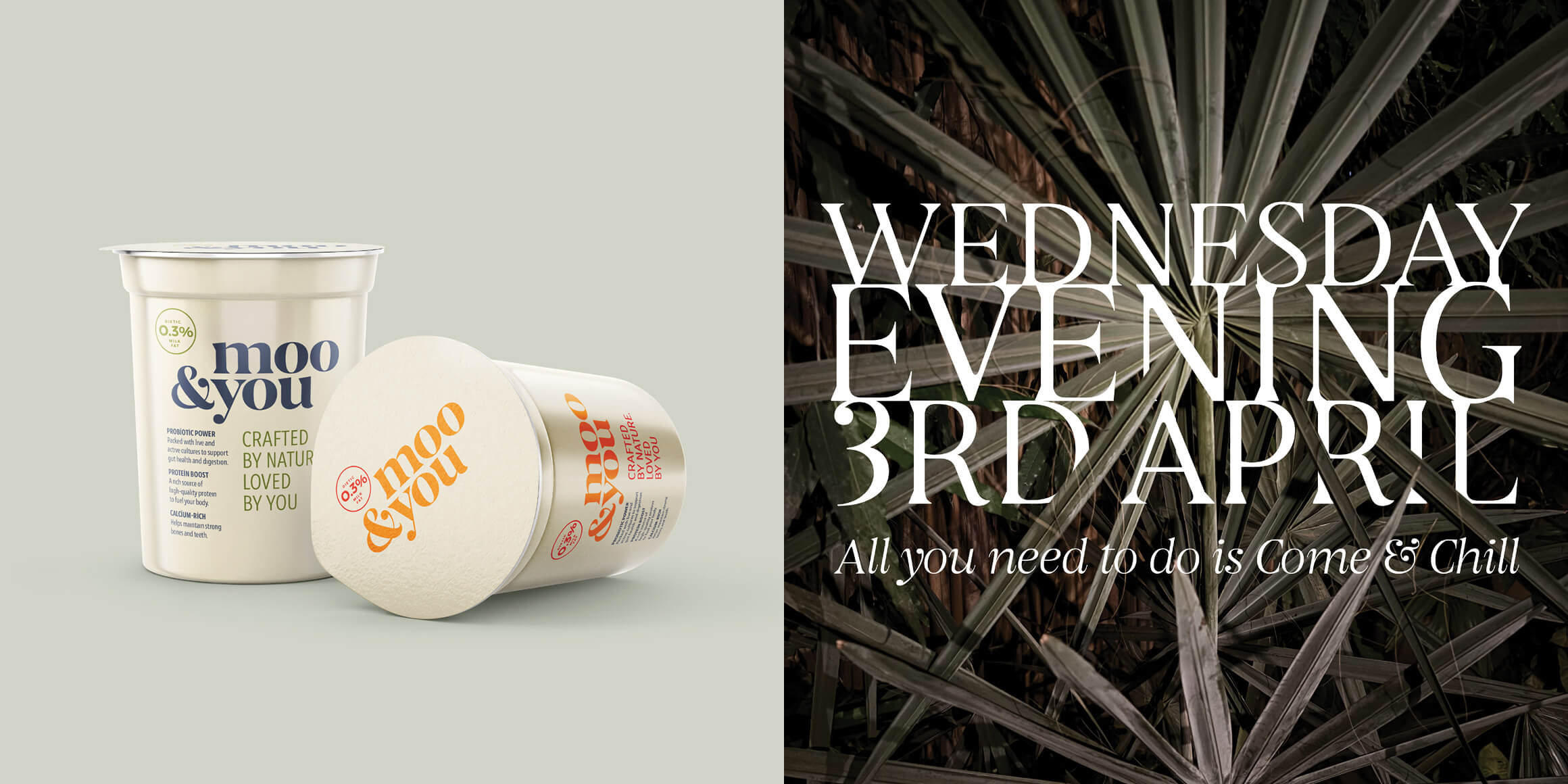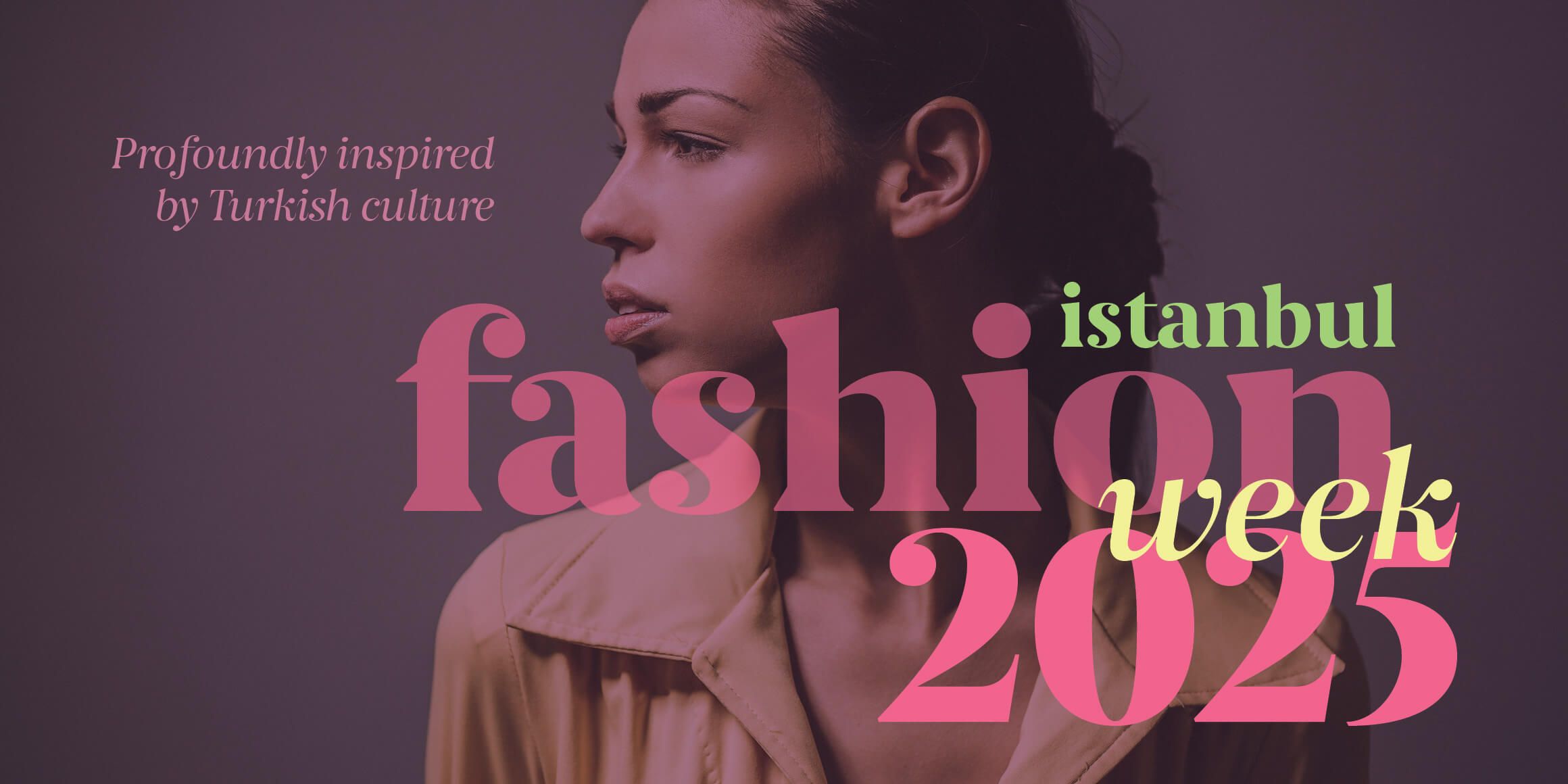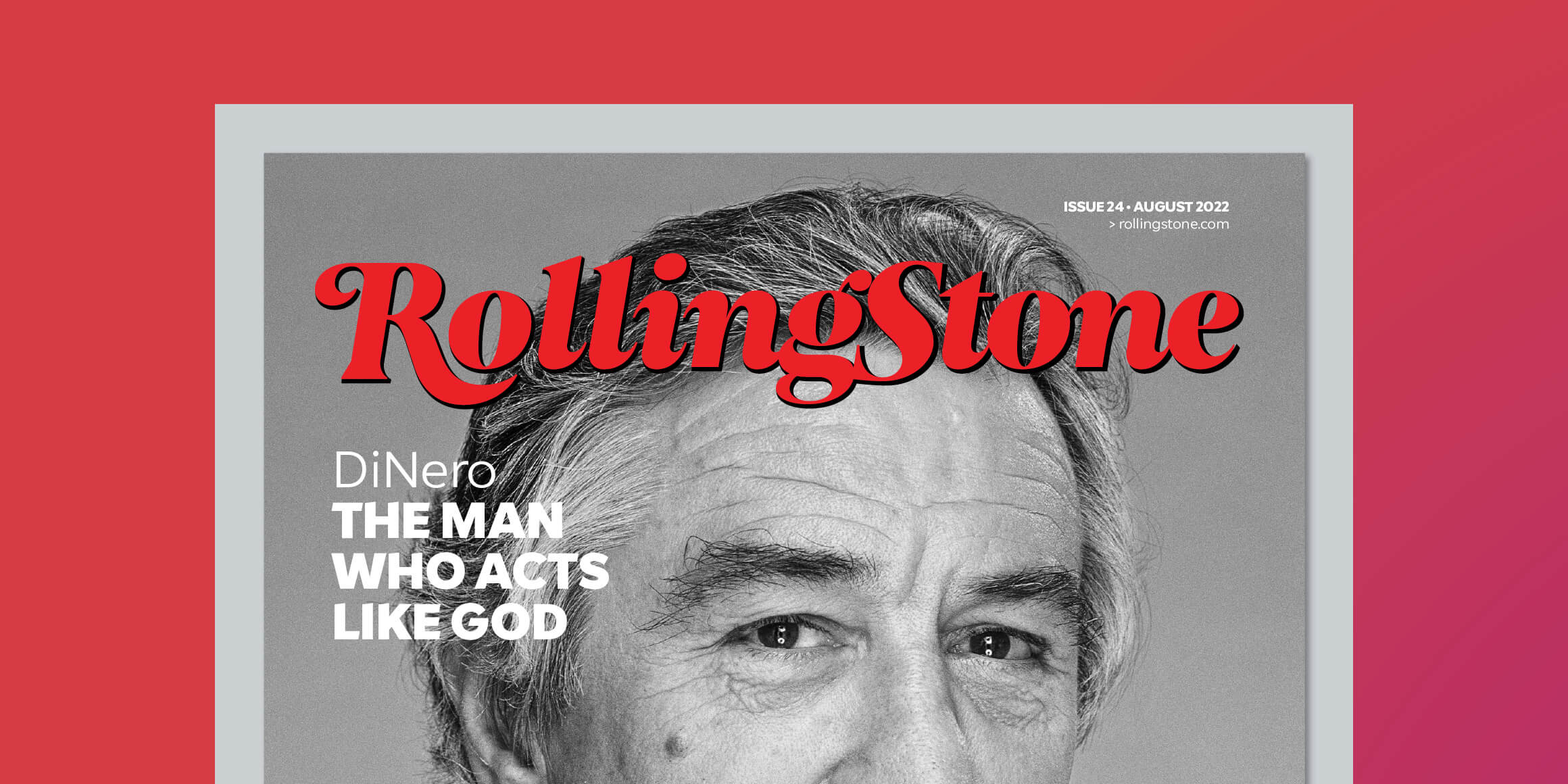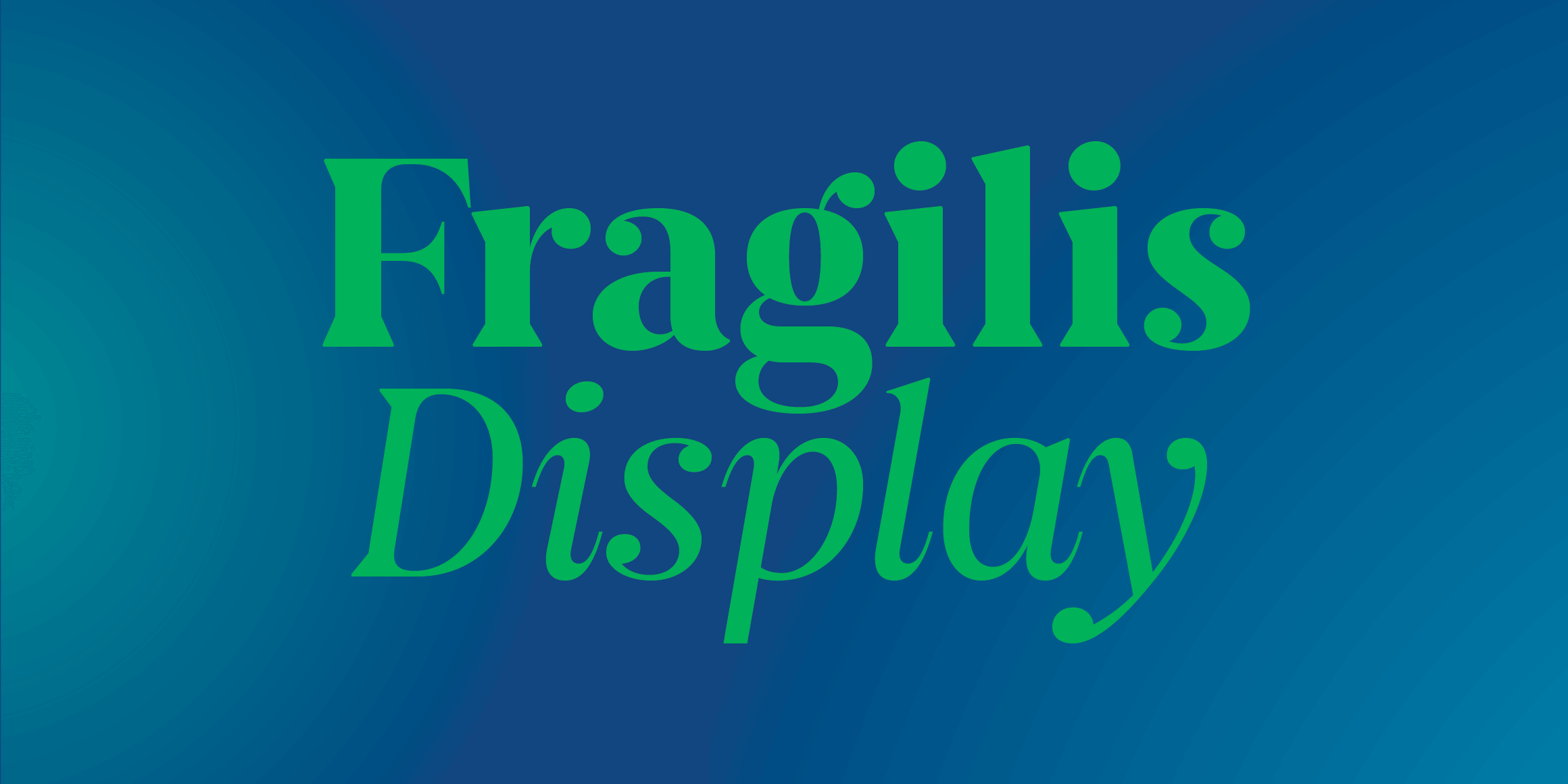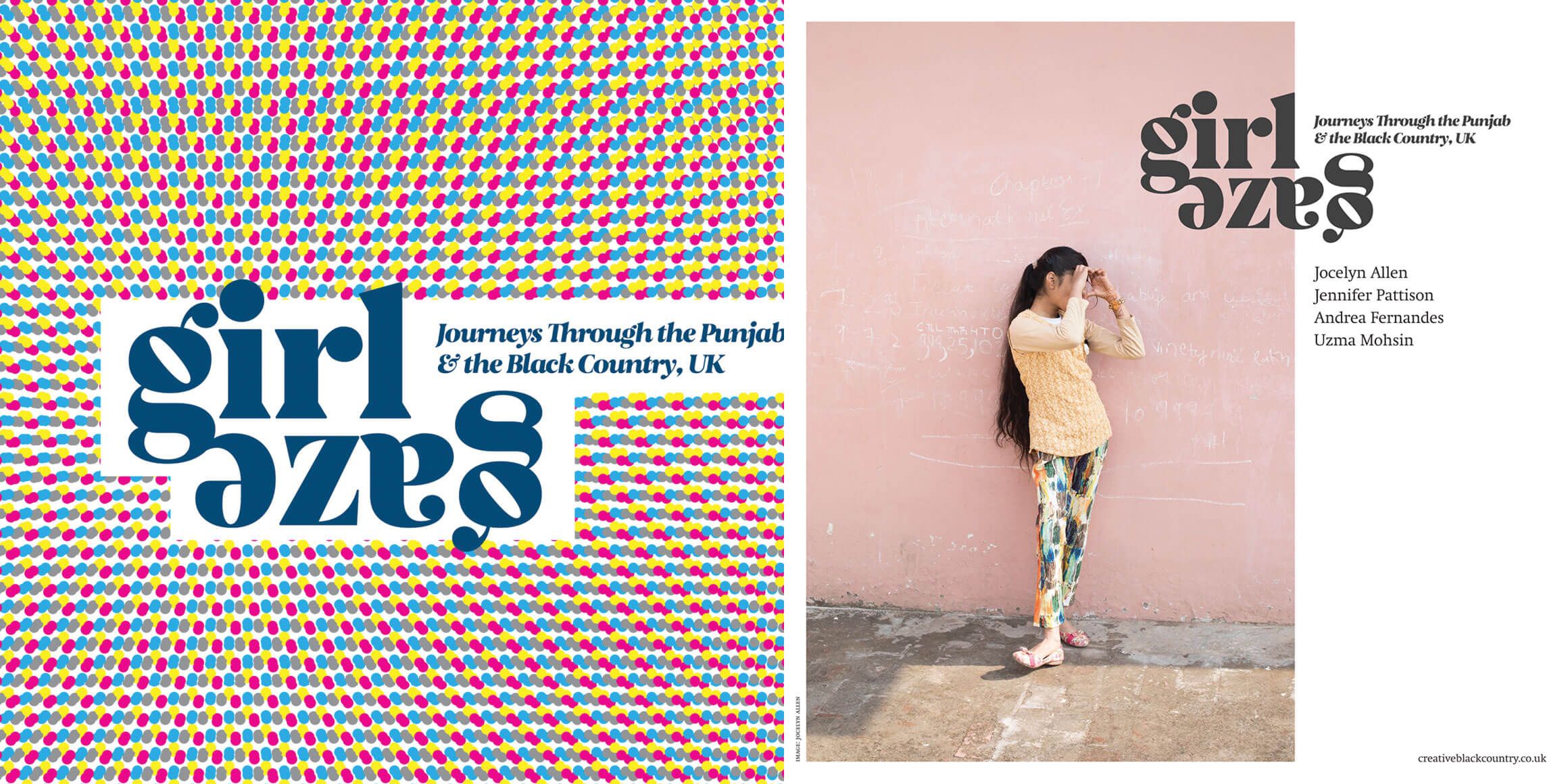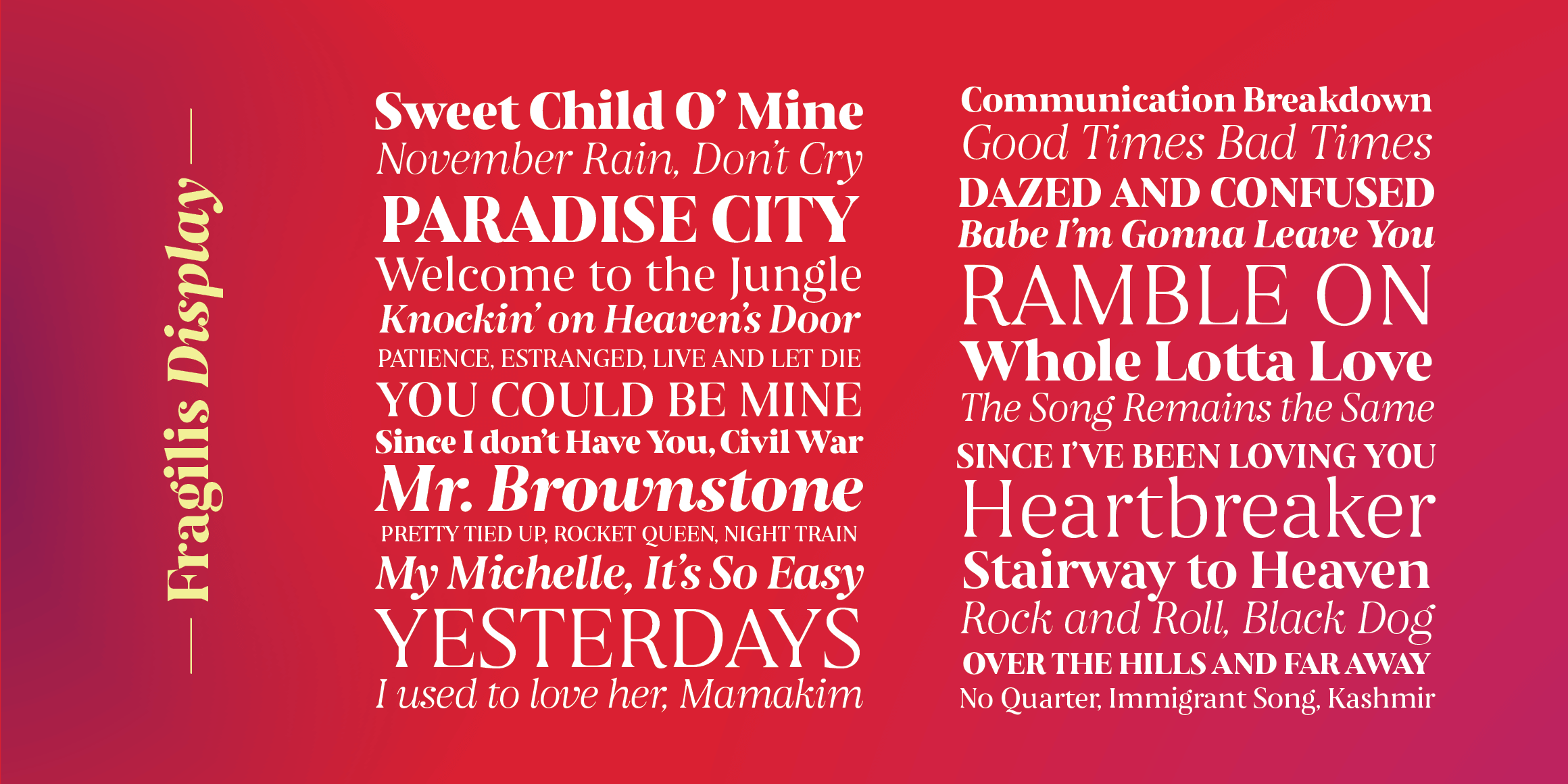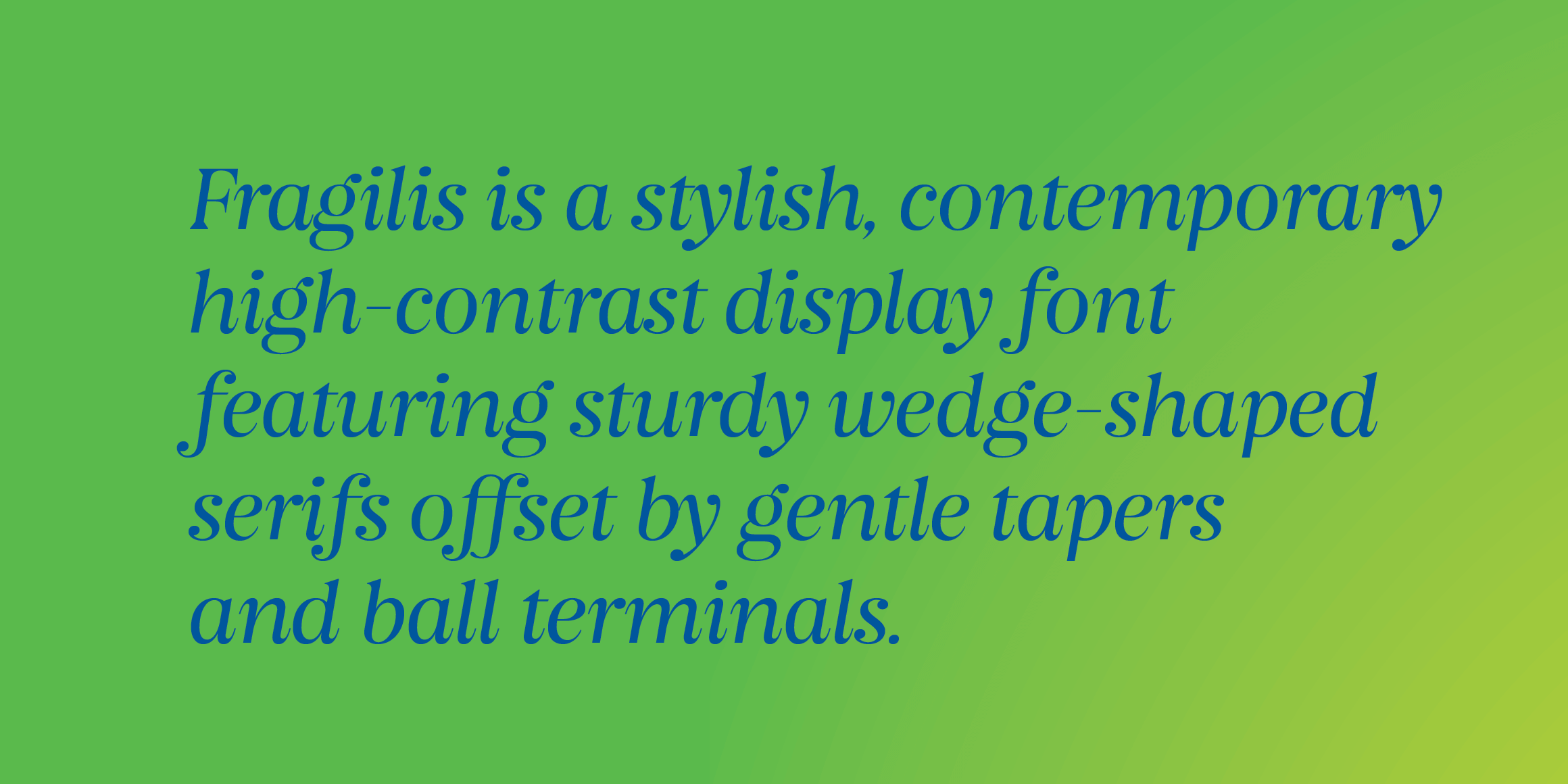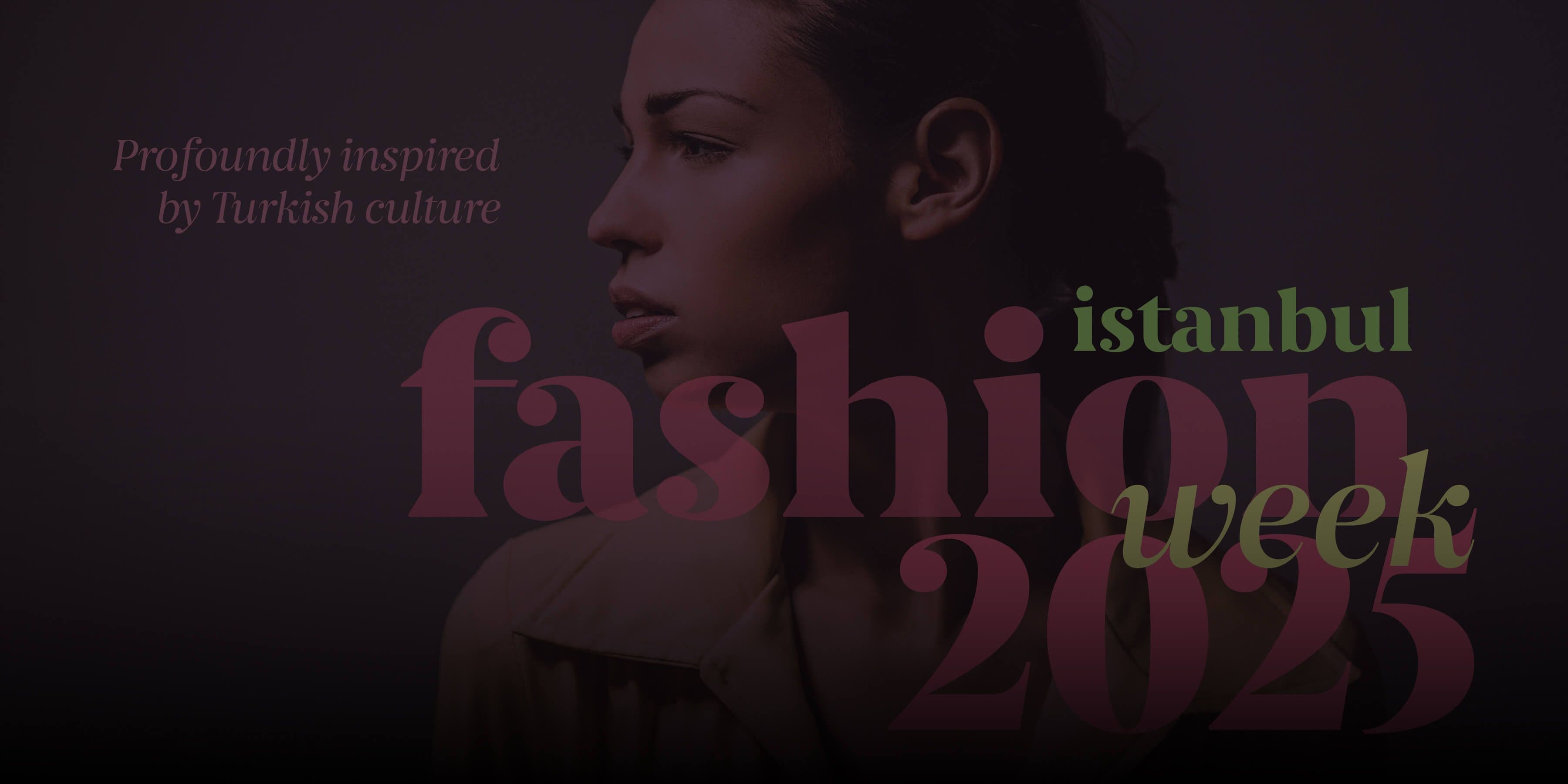
Fragilis Display
Fragilis originates from letterforms initially crafted for a visual identity project. Its sturdy, wedge-shaped serifs blend harmoniously with delicate tapers and ball terminals, creating a bold and confident personality with a hint of vintage charm. Ideal for branding, large displays, and headlines, Fragilis exudes both character and style.